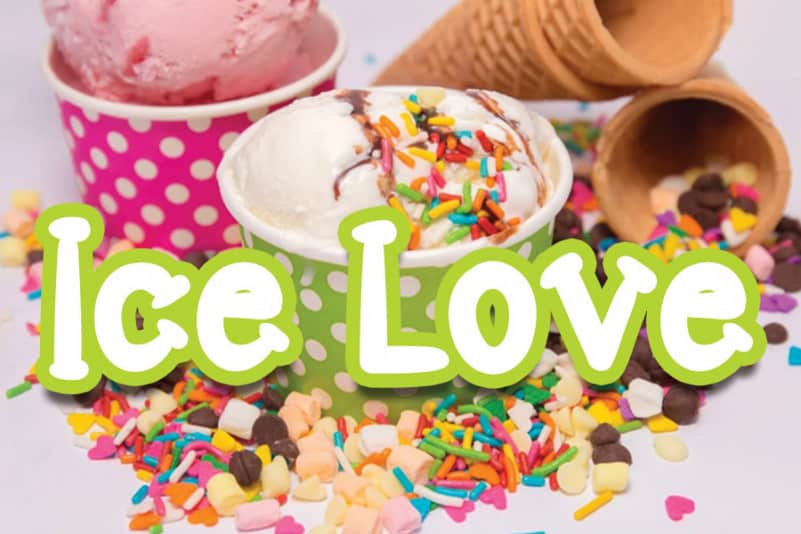
Smaqunem Display Font
Smaqunem Display Font is a particularly distinct and unique display font. Colorful and friendly, this font will look outstanding on a wide variety of designs! The only limit is your imagination!
The latest style letters are perfect for wall displays, wedding invitations, social media post logos, advertisements, product packaging, product designs, labels, photography, watermarks, invitations, stationery, and any project that requires taste handwriting.